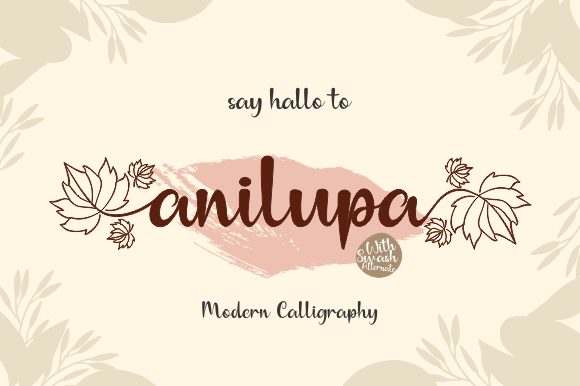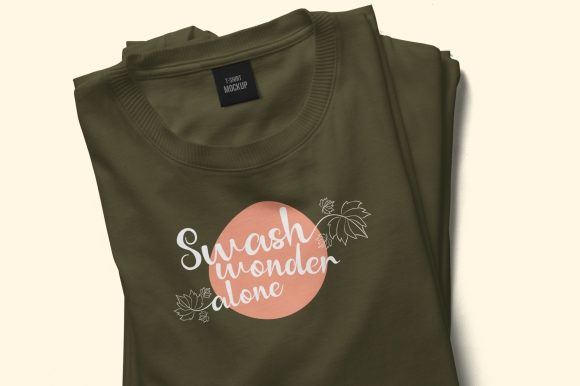
About Anilupa Font
Anilupa is a delicate, elegant and flowing handwritten font. It has beautiful and well balanced characters and as a result, it matches a wide pool of designs. Add it to your most creative ideas and notice how it makes them come alive! This font is PUA encoded which means you can access all of the glyphs and swashes with ease!